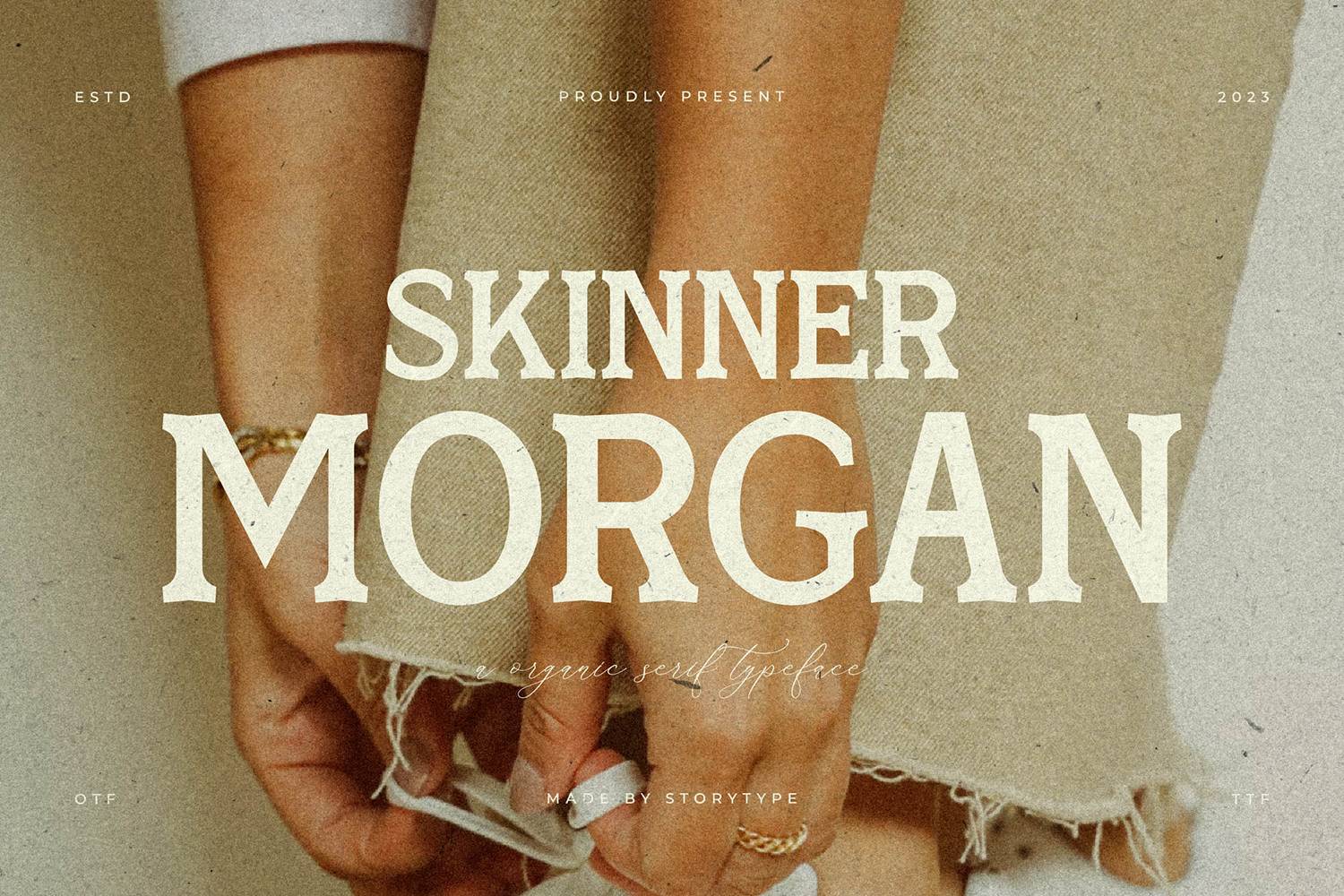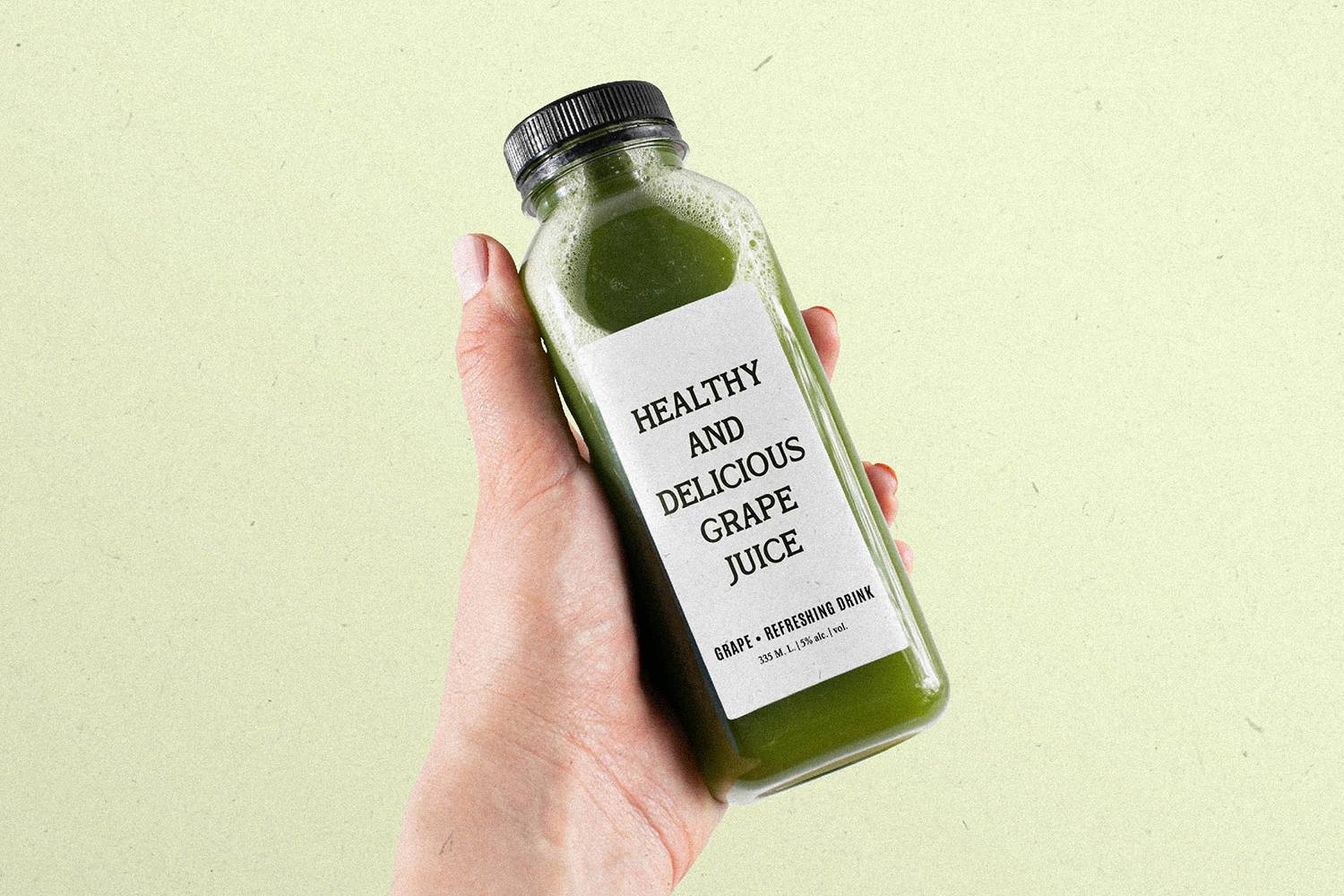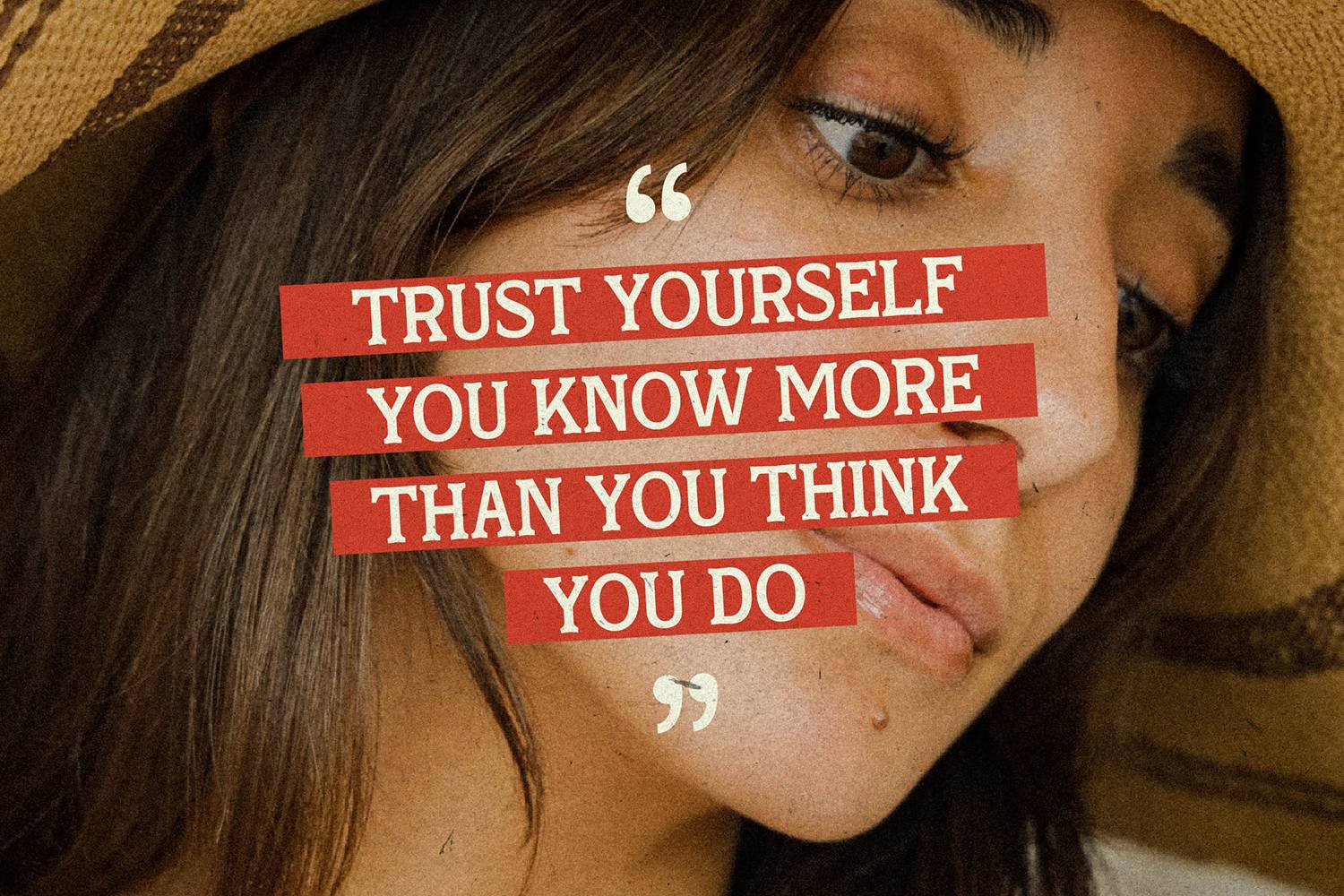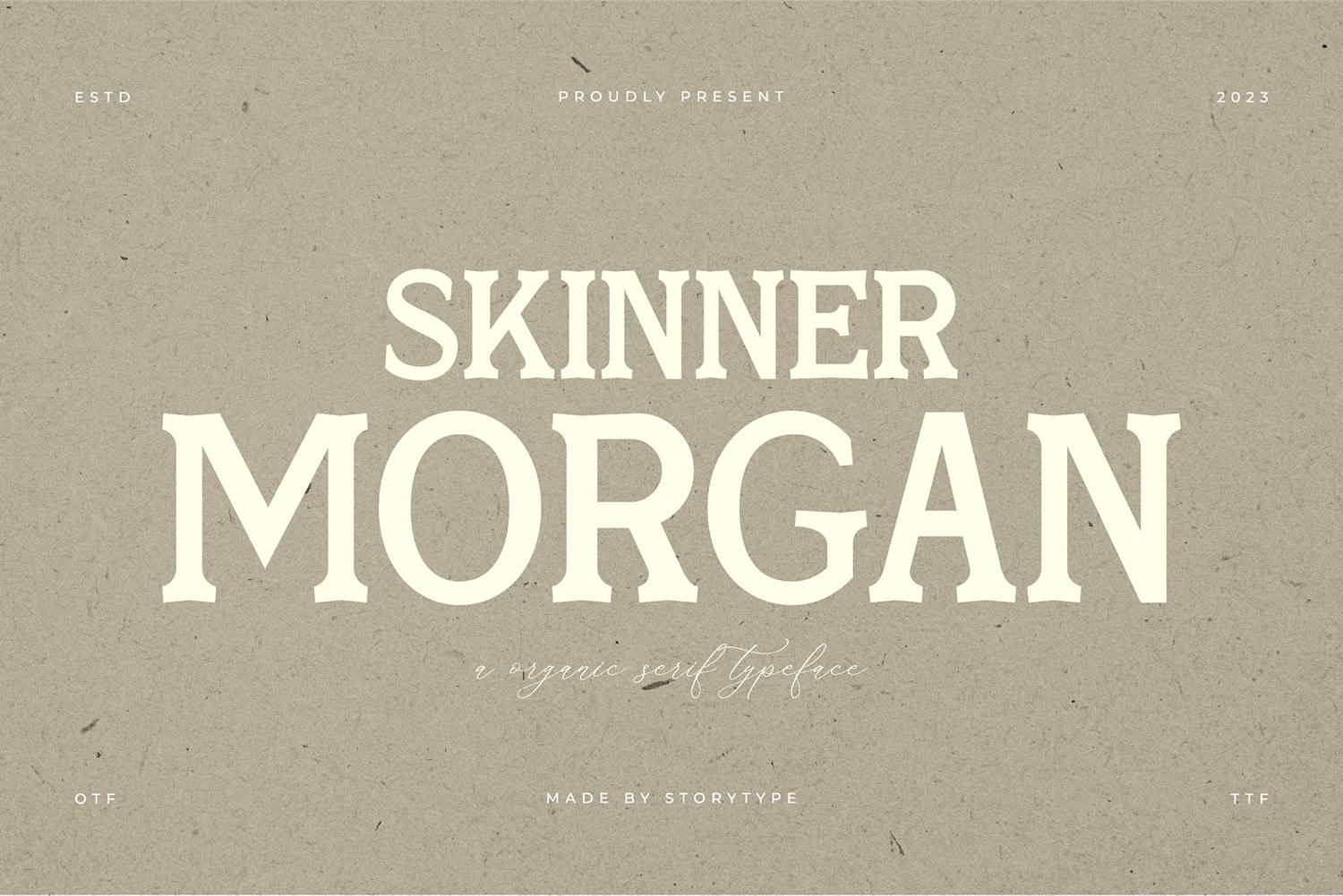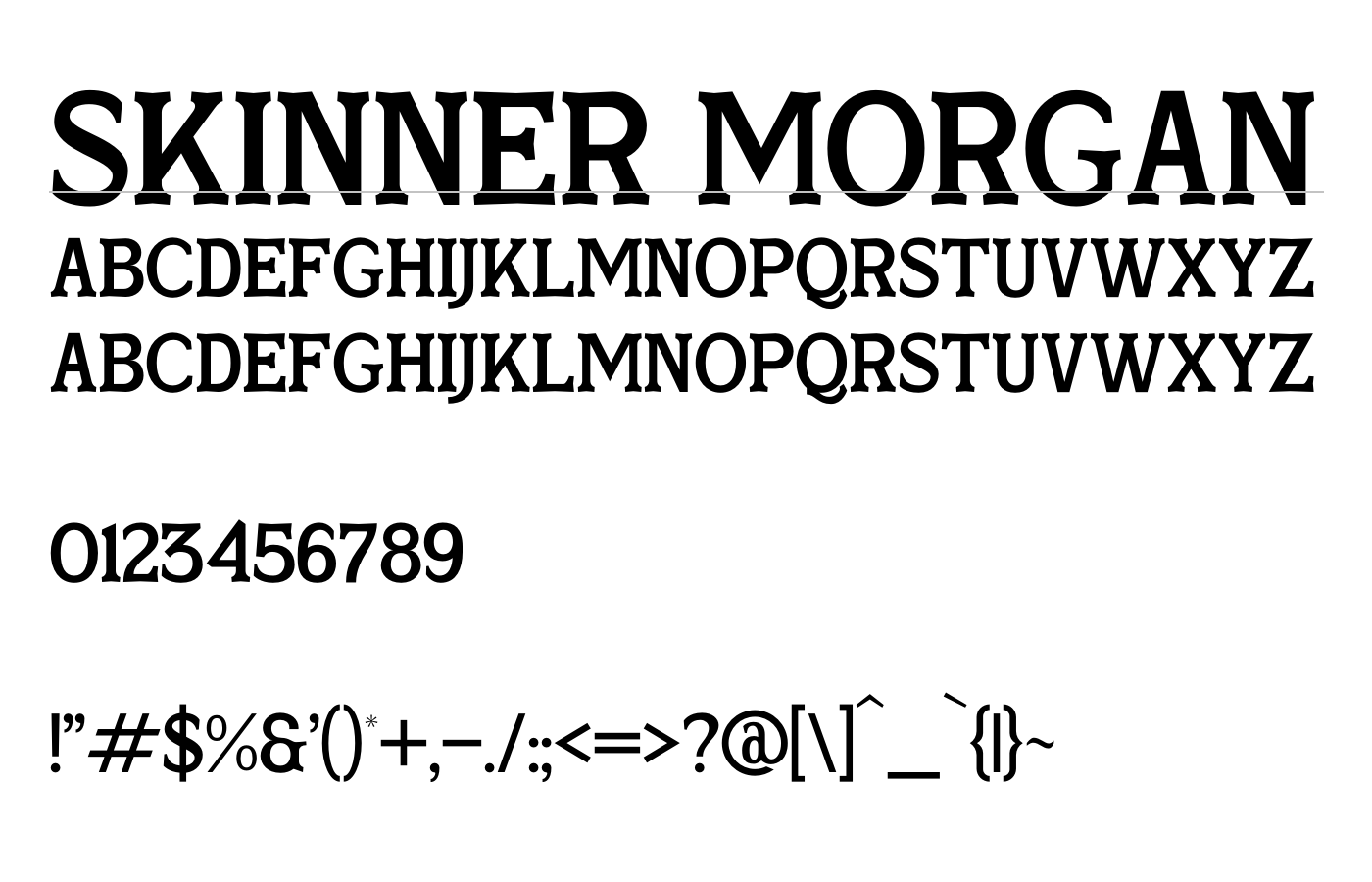
Skinner Morgan is a distinctive serif font with a strong, classic character and medium-high stroke contrast, featuring unbracketed, sharp serifs and elegant, slightly condensed letterforms. Its traditional yet robust style, combined with unique details like the curled tail on the Q and the single-story a, makes it ideal for vintage-inspired branding, editorial headlines, and packaging that seeks to convey sophistication and timeless authority. This font works well in settings where a blend of tradition and readability is important, offering a bold presence without sacrificing clarity.
Skinner Morgan Font
About Skinner Morgan Font